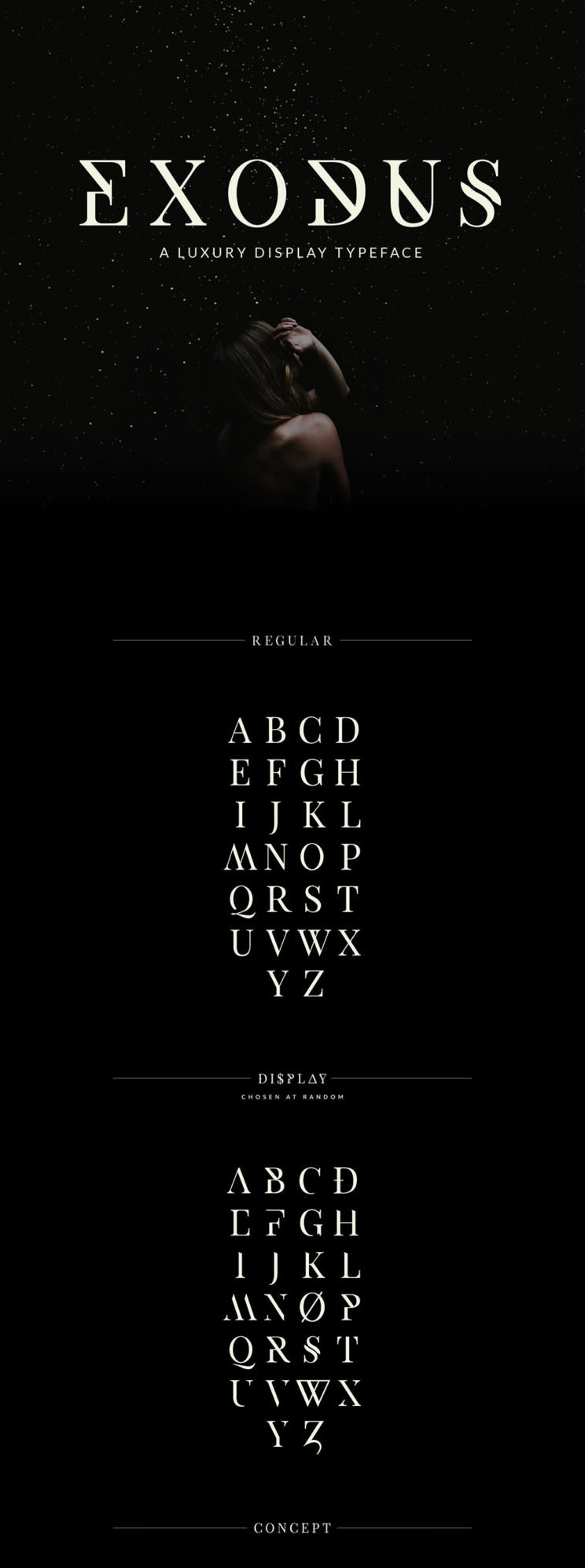
I have found the other day a great font called Exodus, that I thing it a great resource for graphic design projects, like logo designs, magazines, flyers and more. It’s free for personal use, so you can use it on personal projects for free, and for the price of only $15, you can get it for commercial use, and use it on your client’s projects. It’s available in 6 styles: regular, stencil, striped, sharped, substract and wacky, all awesome and unique. Thanks to Andrew Herndon for this great font, and you can click it’s name for more free and premium resources!